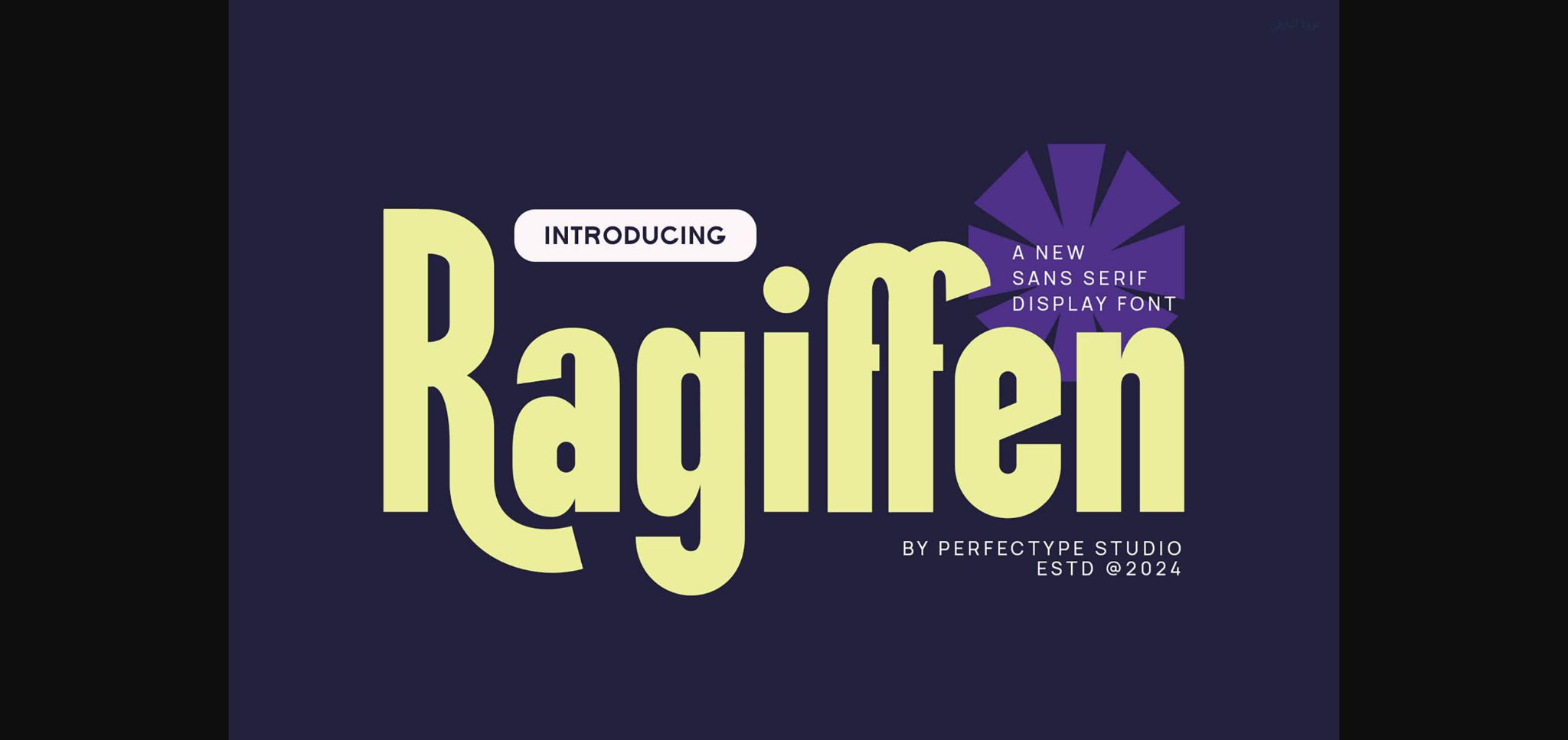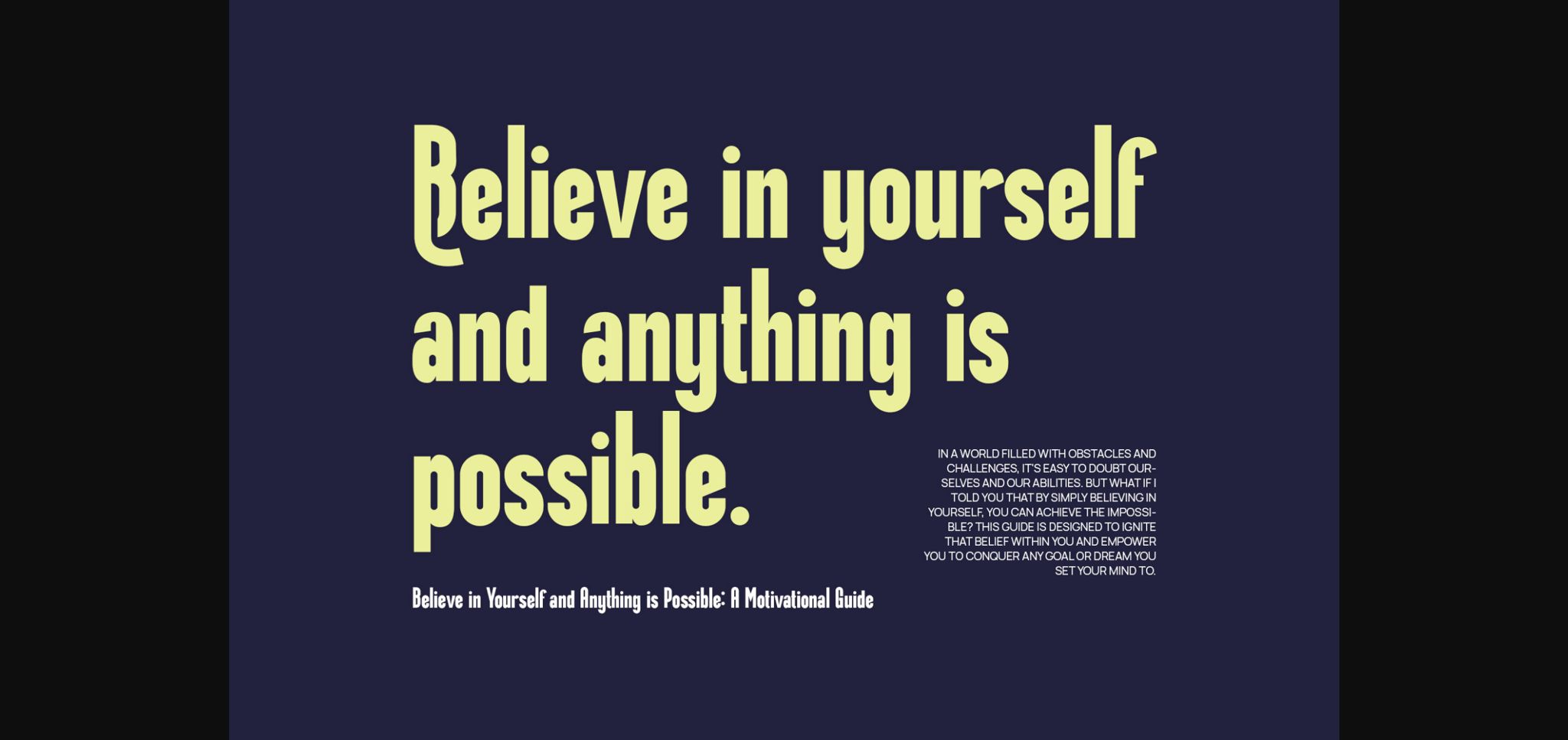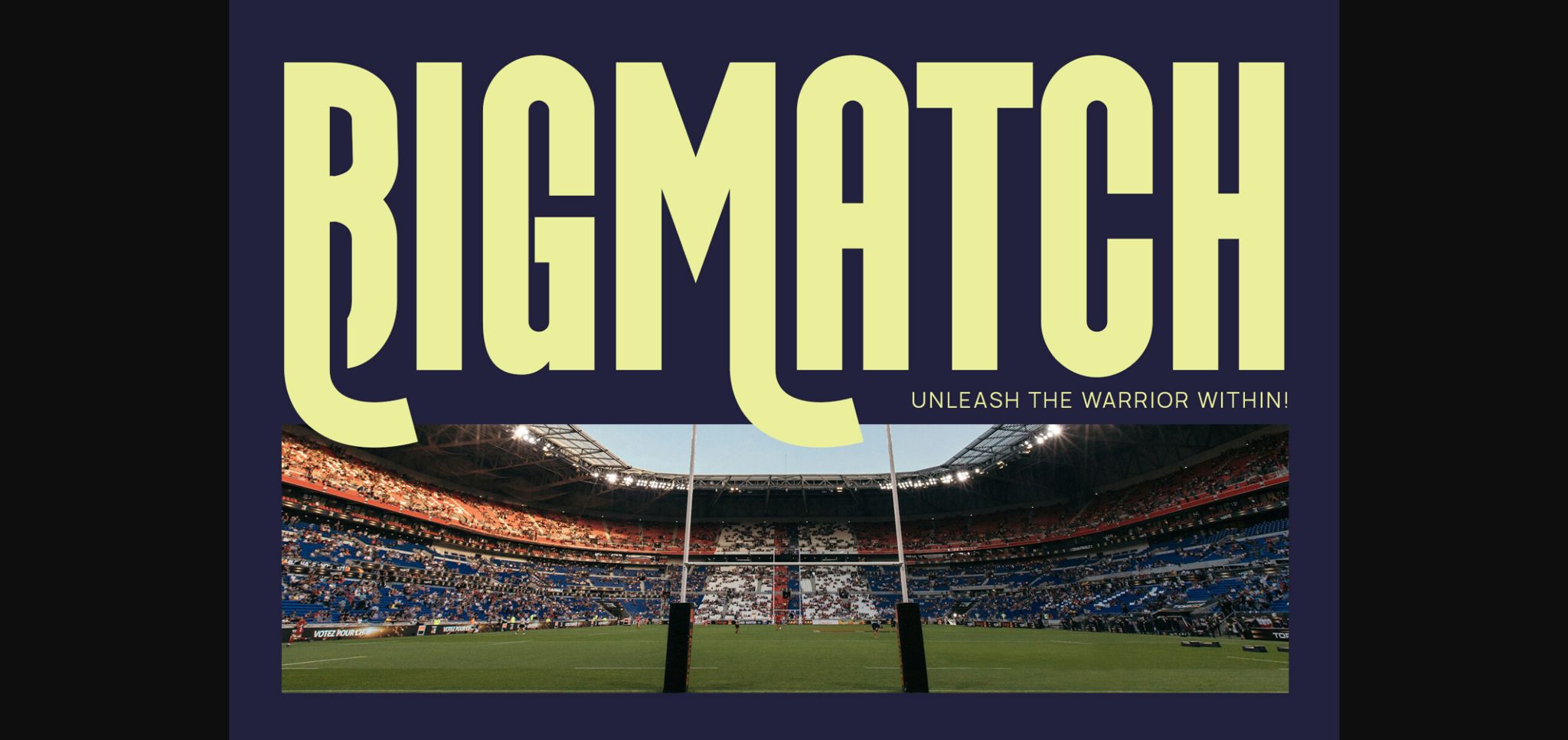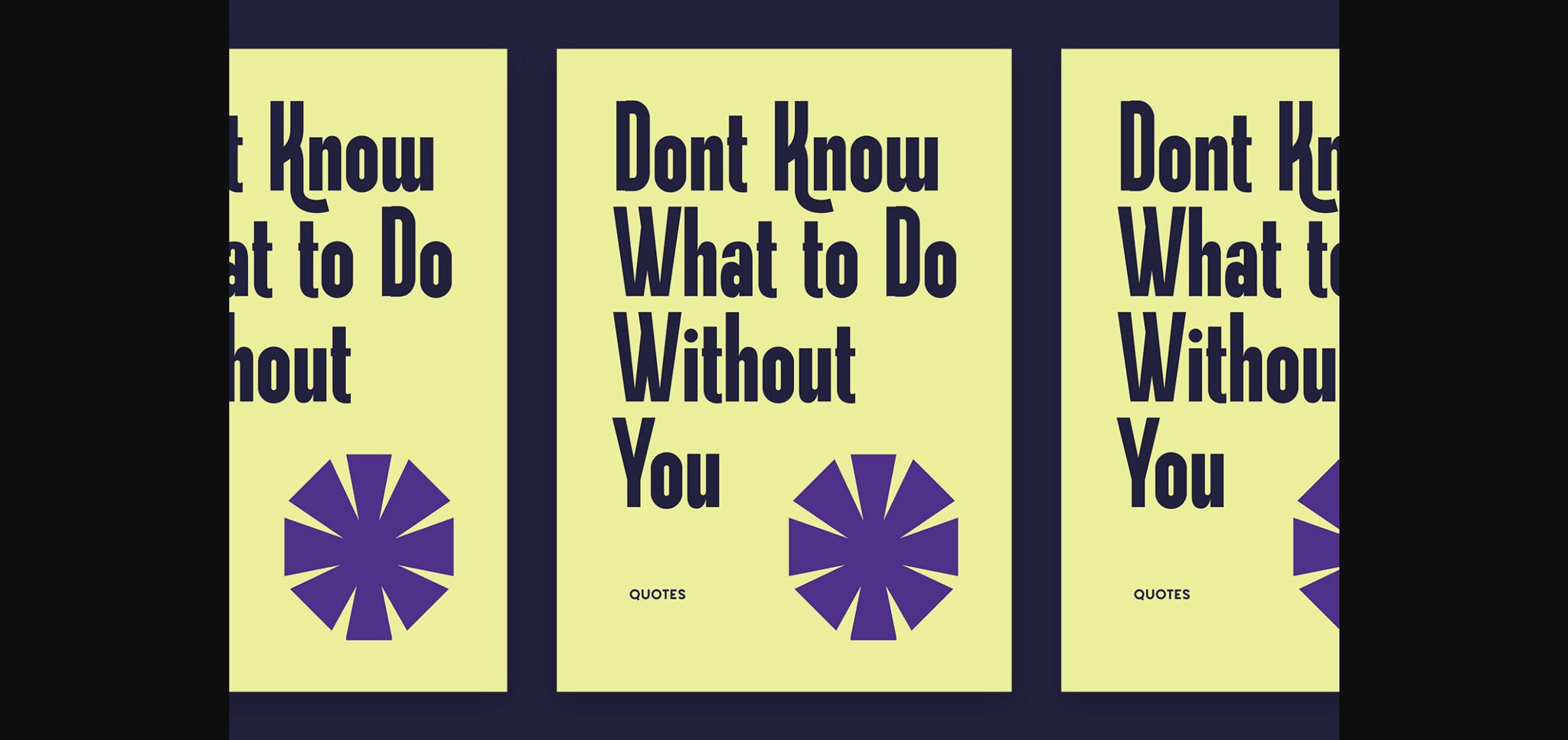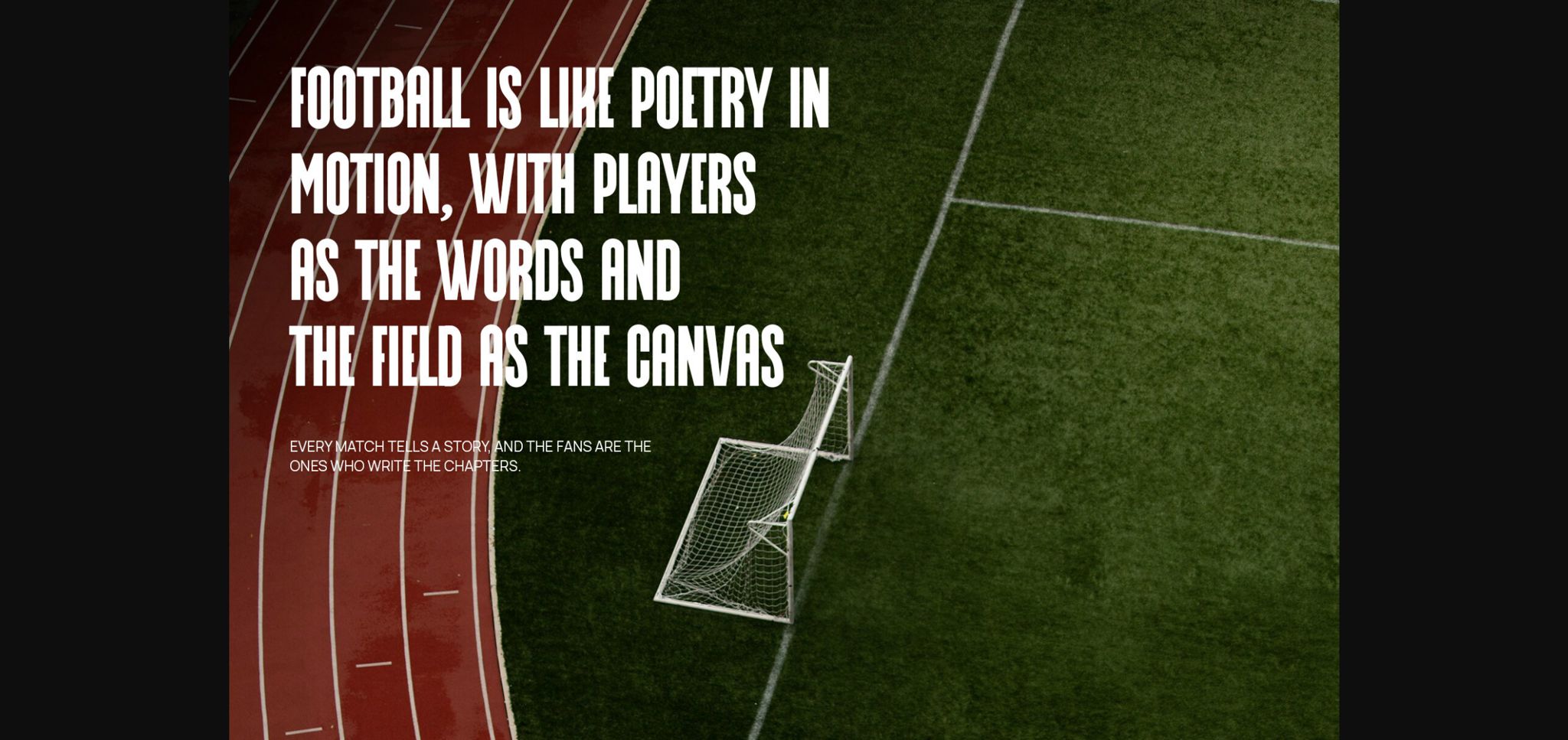
About Ragiffen Font
Ragiffen is a trendy, bold sans-serif display typeface that commands attention with its striking presence. With clean lines and geometric shapes, it exudes modernity and confidence, making it perfect for headlines, posters, and branding materials that aim to make a bold statement while maintaining a contemporary edge.